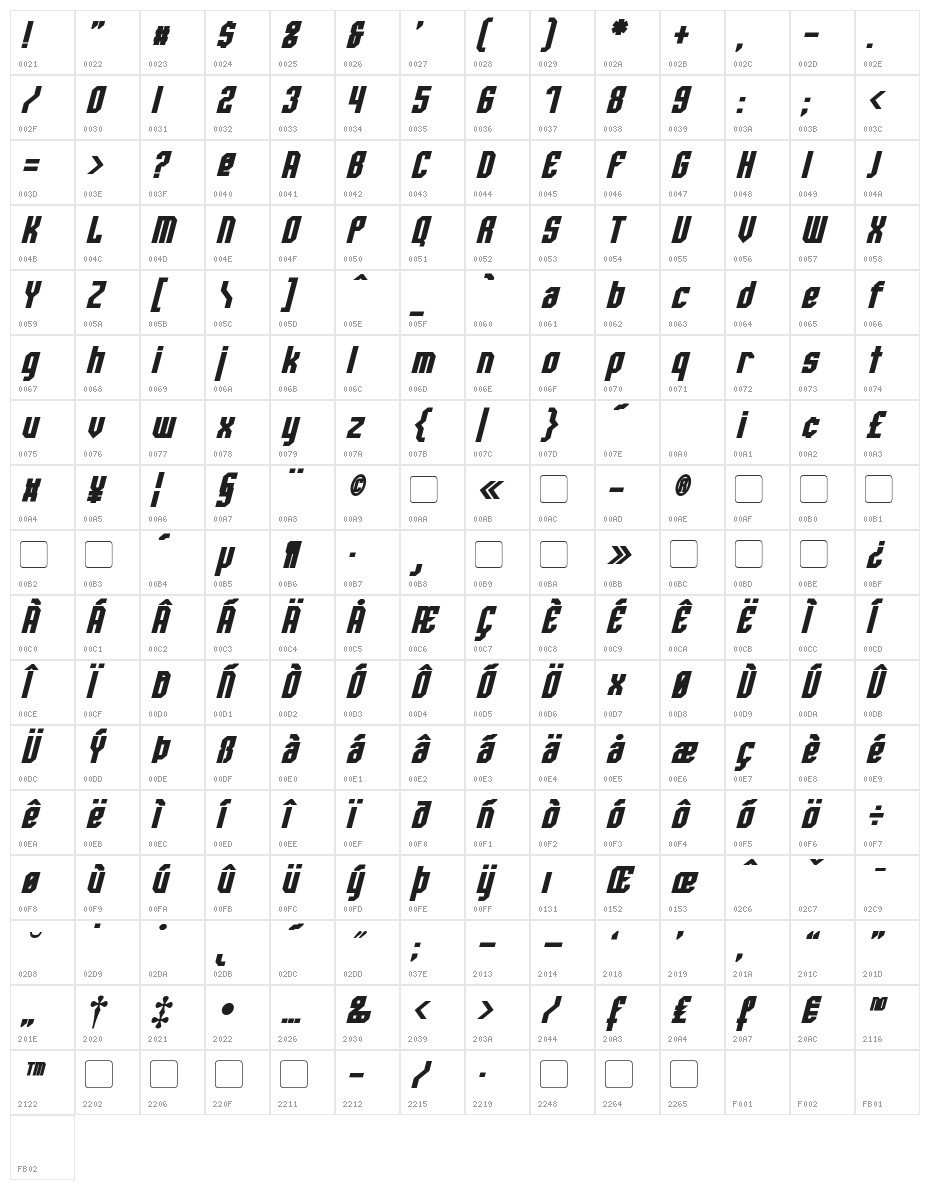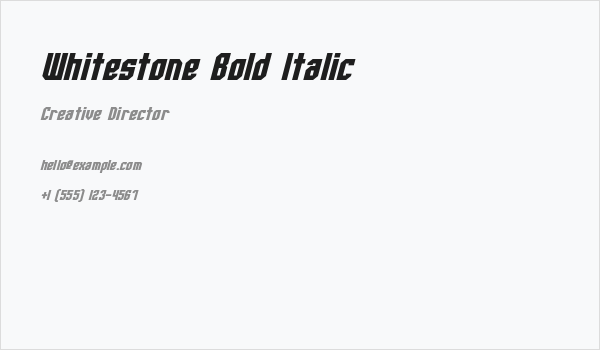
Whitestone Bold Italic Font
Whitestone Bold Italic Description
This font features a bold and italicized style with a strong, angular design. The characters are sharply defined with a consistent slant, giving them a dynamic and energetic appearance. The uppercase and lowercase letters maintain a uniform width, contributing to a cohesive look. Numbers and special characters are designed with the same boldness and angularity, ensuring a seamless integration across different text elements. The font's overall aesthetic is modern and assertive, making it suitable for impactful and attention-grabbing designs.
| Proposed Projects | Ideal for branding, sports team logos, posters, and any project requiring a strong visual impact. |